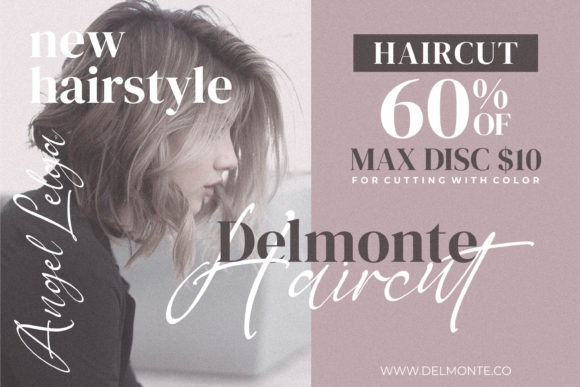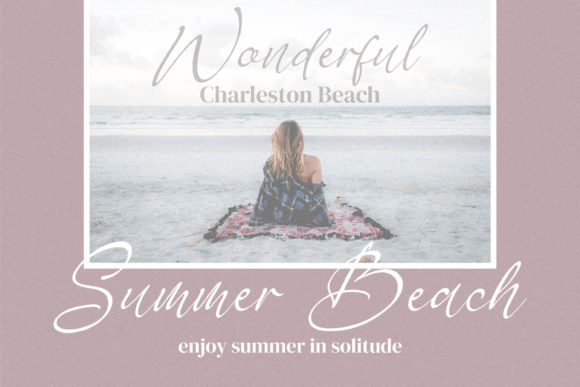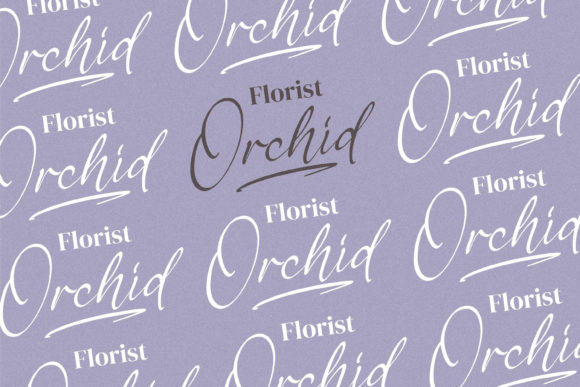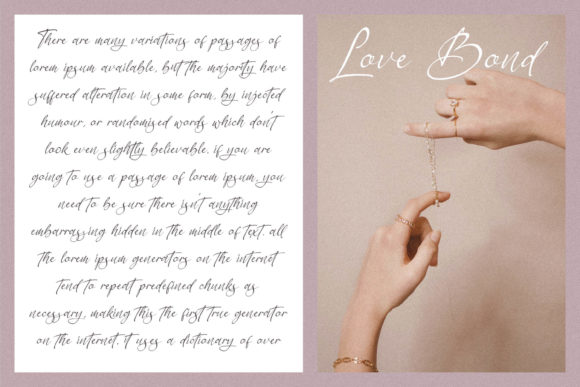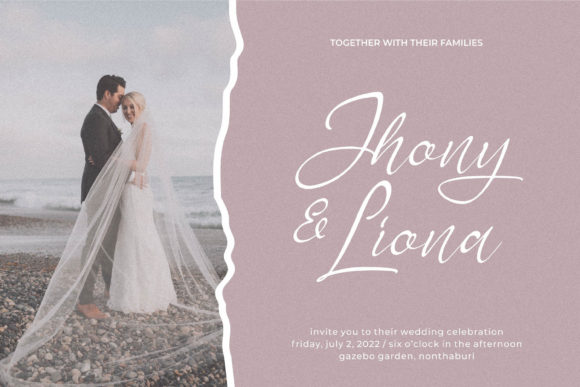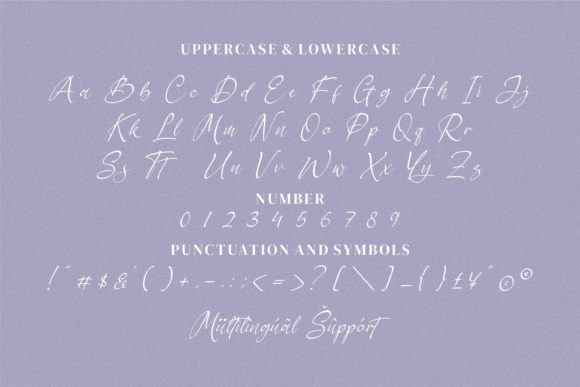
The Elusive Perfect Font: My Encounter with Berthylda Wilonalis
I’ll never forget the frustration of working on a design project, hours spent searching for that one perfect font that would bring my vision to life. My client was specific: elegant, classy, and refreshing – a tall order, I thought. That’s when I stumbled upon Berthylda Wilonalis, a lovely and delicate script font that exuded everything I needed and more. In this article, I’ll share my experience with this beautiful font, its features, and how you can make the most of it in your designs.
An Honest Review of Berthylda Wilonalis
- ✨ Elegant and classy: Berthylda Wilonalis brings a touch of sophistication to any design.
- ✅ Delicate and refined: Its subtle curves and lines make it perfect for projects that require a gentle touch.
- 💫 Versatile: Suitable for a wide range of designs, from wedding invitations to branding and packaging.
- 🎨 Highly customizable: With OpenType features and stylistic alternates, you can experiment with different looks and styles.
While Berthylda Wilonalis is an excellent font, there are a few things to keep in mind:
- 🤔 Limited use in body text: Due to its script nature, it’s best used for headings, titles, or short paragraphs.
- ⚠️ May not work well in small sizes: The font’s delicate features can get lost when scaled down.
The Story Behind Berthylda Wilonalis
Berthylda Wilonalis was crafted with love by a talented type designer who aimed to create a font that would bring a touch of elegance to any design. Inspired by classic calligraphy and refined script fonts, Berthylda Wilonalis was born to help designers like you create stunning, high-end visuals.
| Font Name | Berthylda Wilonalis Font |
| Author | integritypestudio |
Q: What type of projects is Berthylda Wilonalis best suited for?
A: Berthylda Wilonalis is perfect for projects that require an elegant and classy touch, such as wedding invitations, branding, packaging, and titles or headings.
Q: Can I use Berthylda Wilonalis for body text?
A: While possible, Berthylda Wilonalis is best used for headings, titles, or short paragraphs due to its script nature.
Q: Does Berthylda Wilonalis support OpenType features?
A: Yes, Berthylda Wilonalis supports OpenType features, including ligatures, stylistic alternates, and glyphs, allowing for advanced typographic control.
Q: Is Berthylda Wilonalis suitable for digital use?
A: Absolutely! Berthylda Wilonalis is designed to look great both in print and digital formats, making it a versatile choice for various design projects.